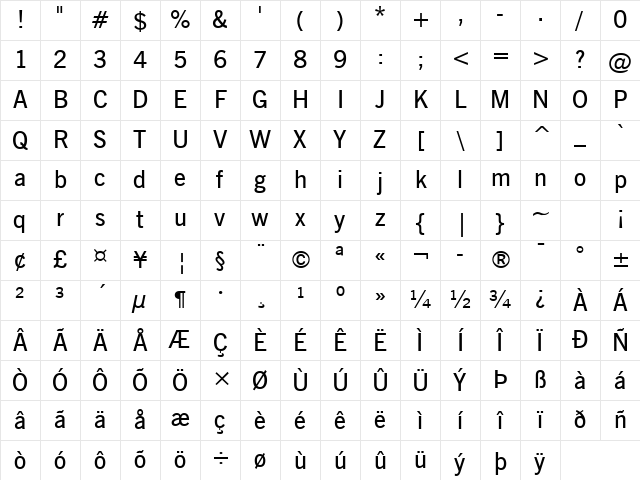
Complete Record Gothic Dm CE Regular glyph index. Displaying only characters natively supported by Record Gothic Dm CE Regular font.
Record Gothic Dm CE takes a clean, functional approach - its unadorned letterforms prioritise legibility and work reliably across screen and print environments.
Font Pairing: Works well alongside a characterful serif or display font that can carry the expressive load while Record Gothic Dm CE handles the functional copy.
Pro Tip: Use Record Gothic Dm CE for UI labels, navigation, and short-form body copy where clean legibility is the priority.